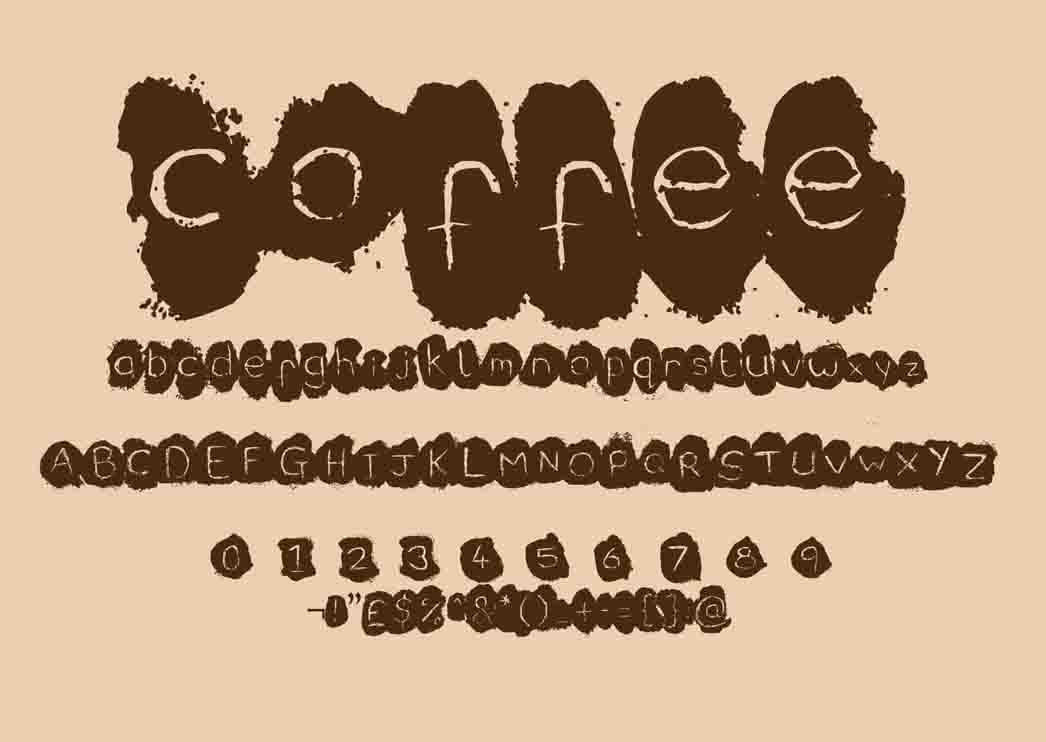
sketches by a friend of mine Mediatrirendered using Adobe.
Very cute!
delayed but it rocks was lookin for a font and this is exactly right!!
Ahoy mate! Very lovely work, I am proud. Used you're font for one of my pieces, hope that's alright. Keep up the super work!!
lovin it now all i have to do is find where to apply it
what about a chocolate stores ads?
i apply these fonts for a bakery ads
This is so cute LOVE it. I am featuring it in my journal as an "Oibyrd DD"